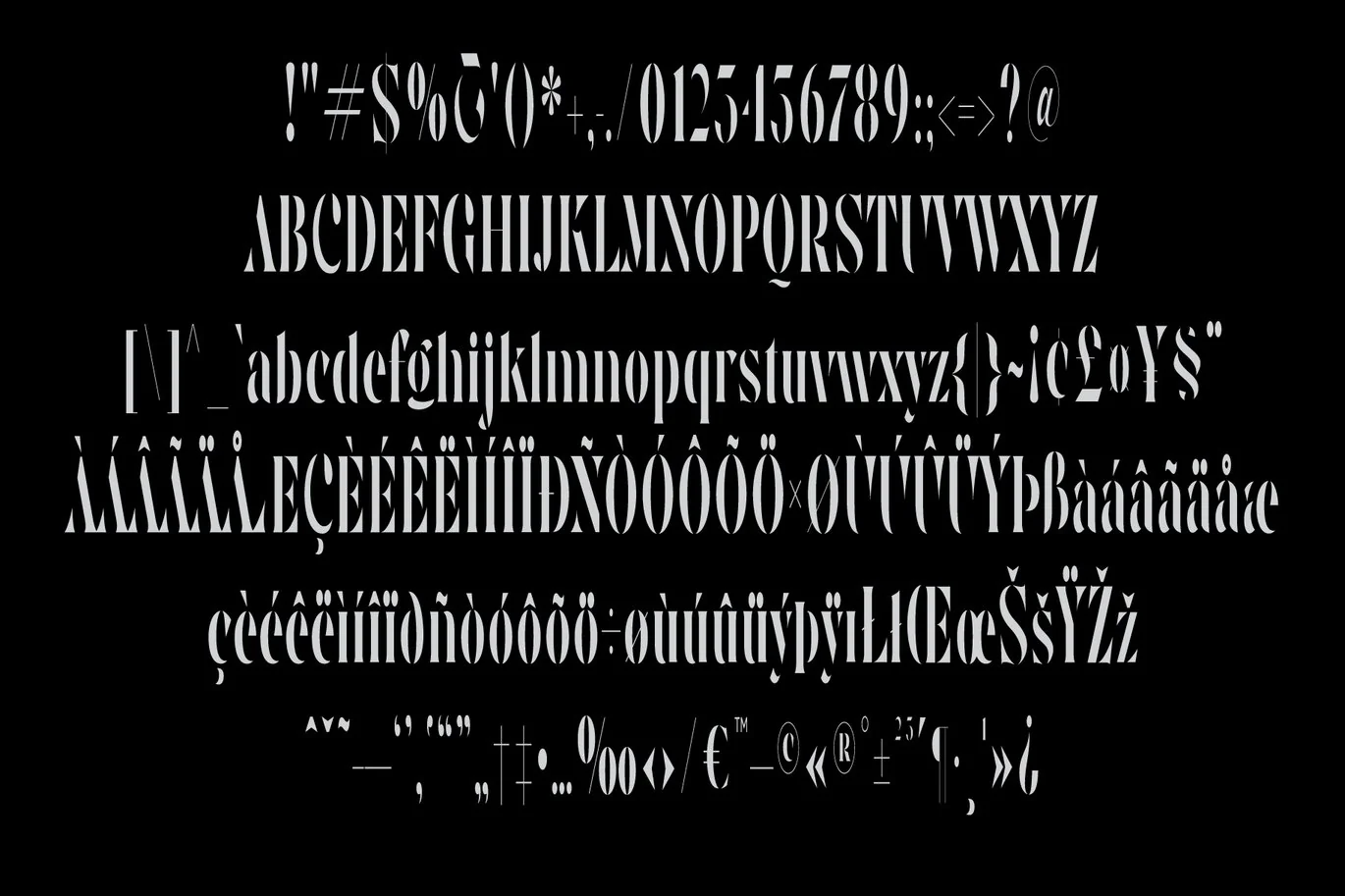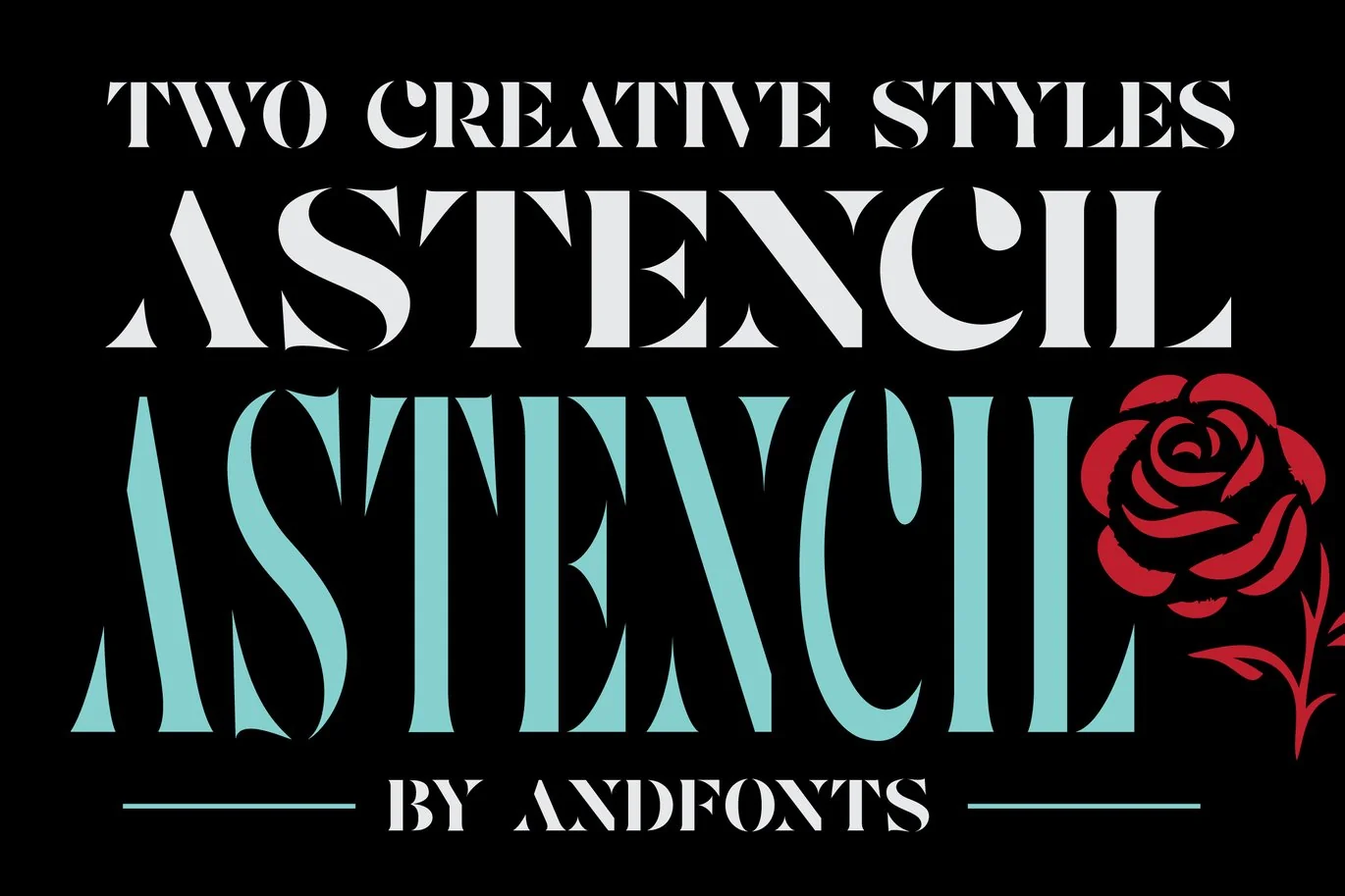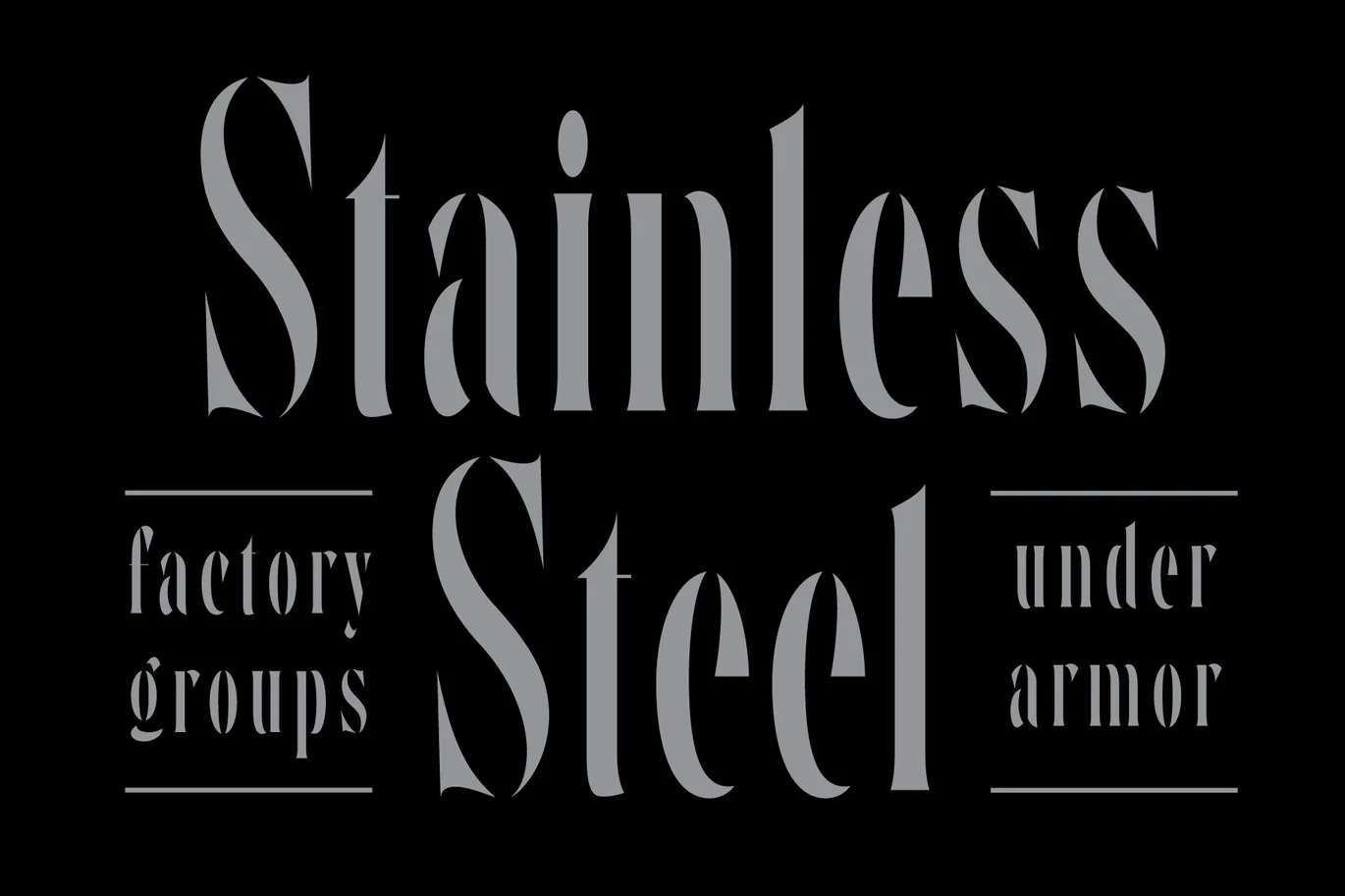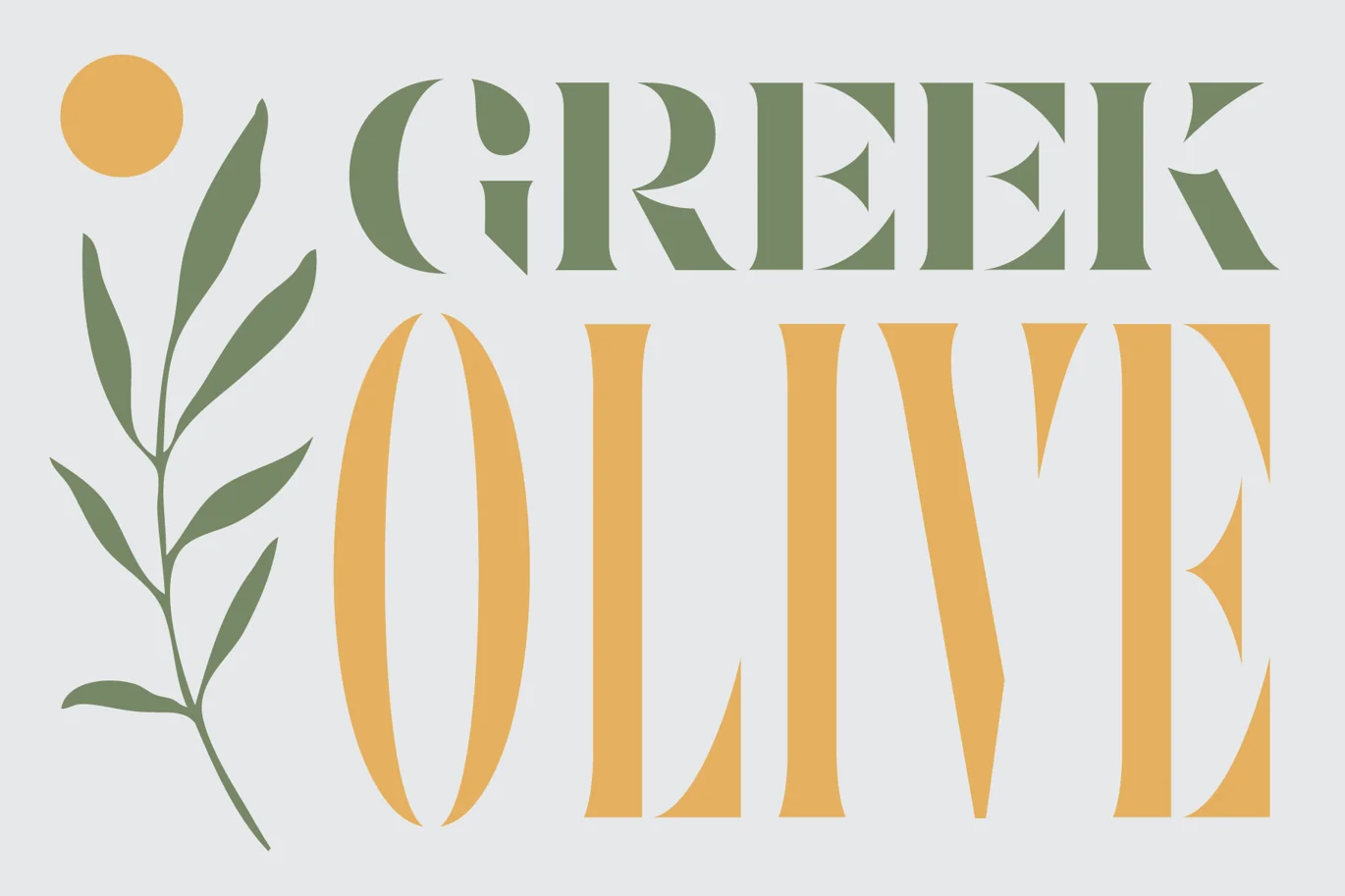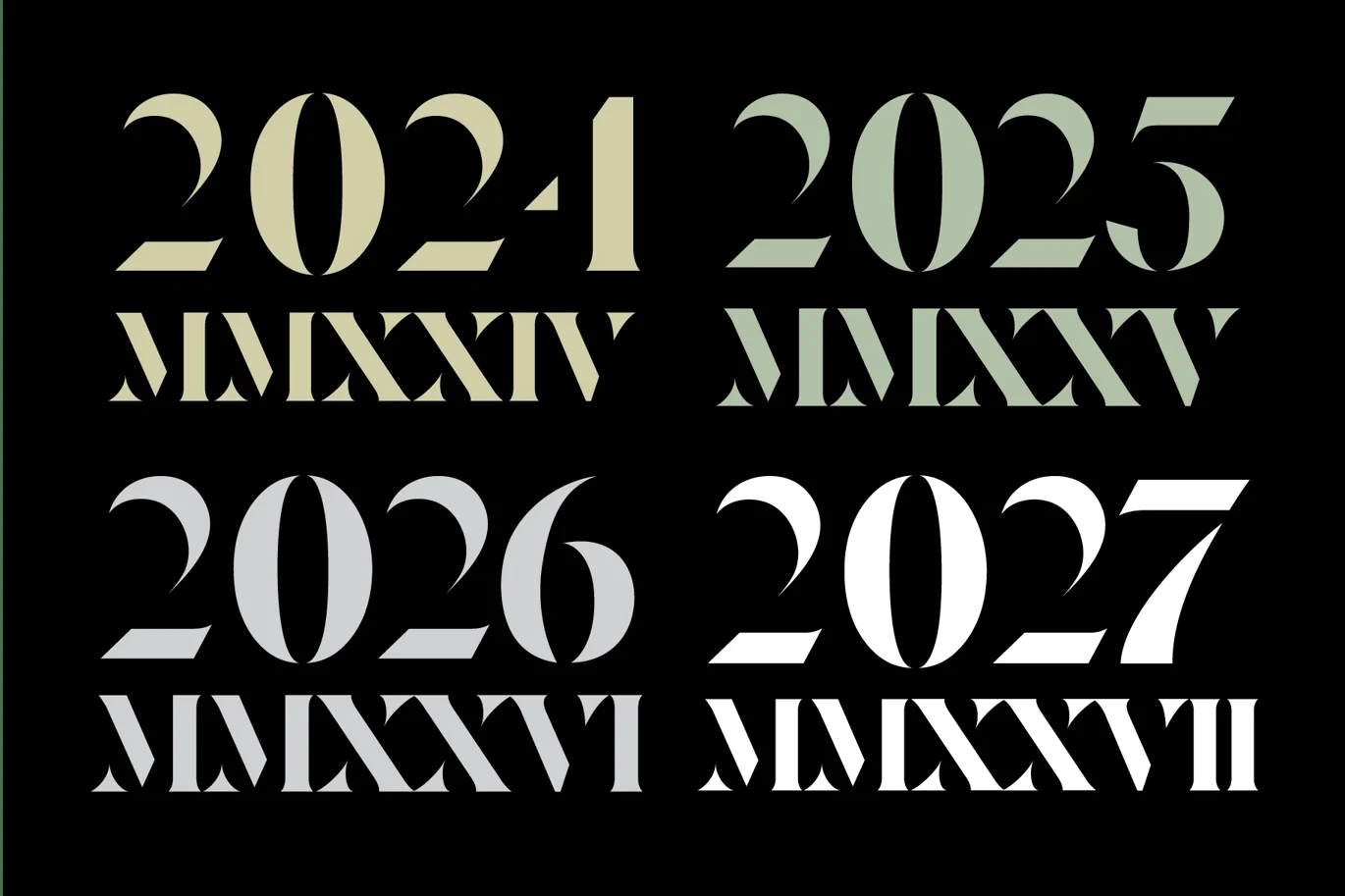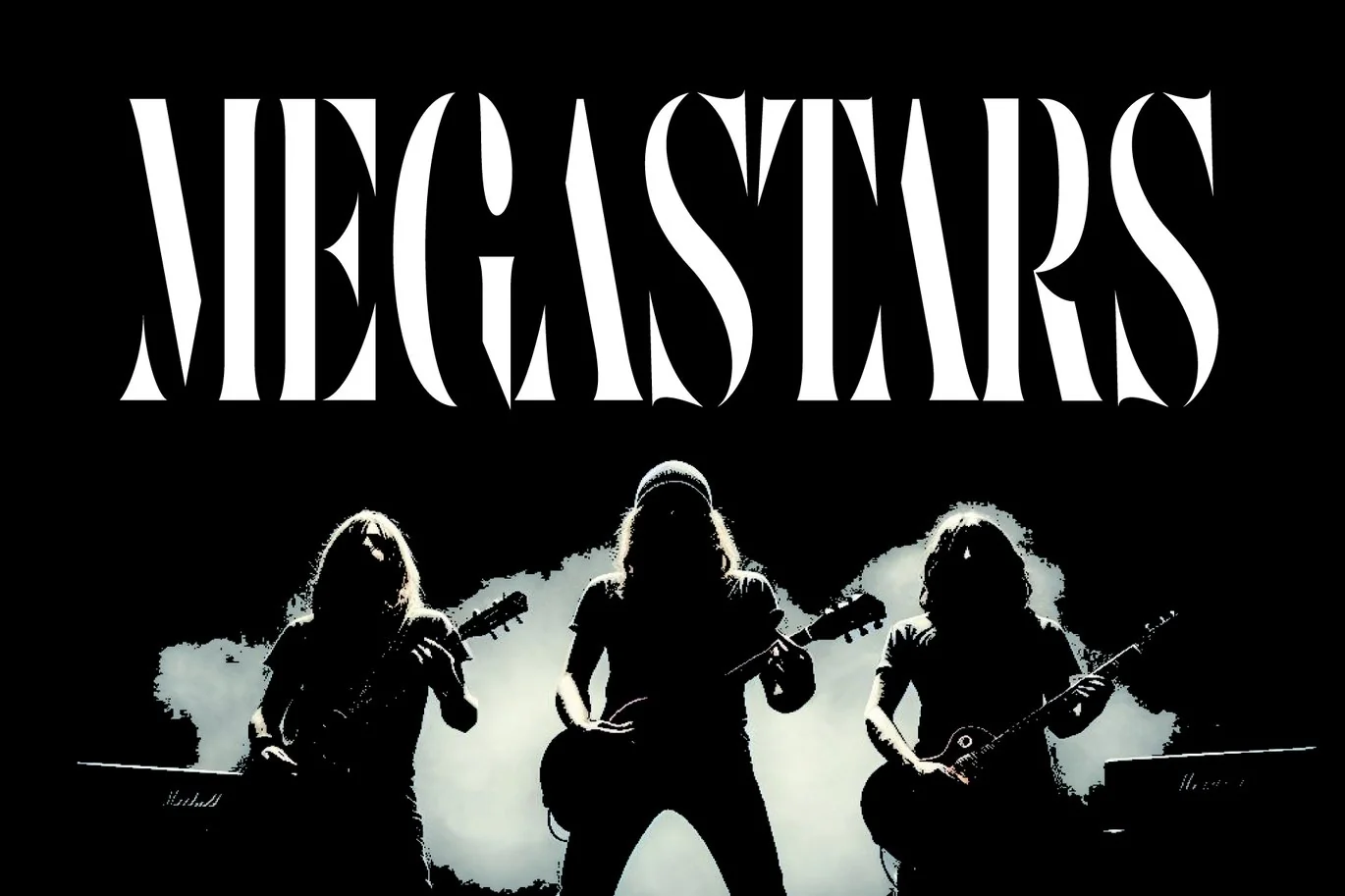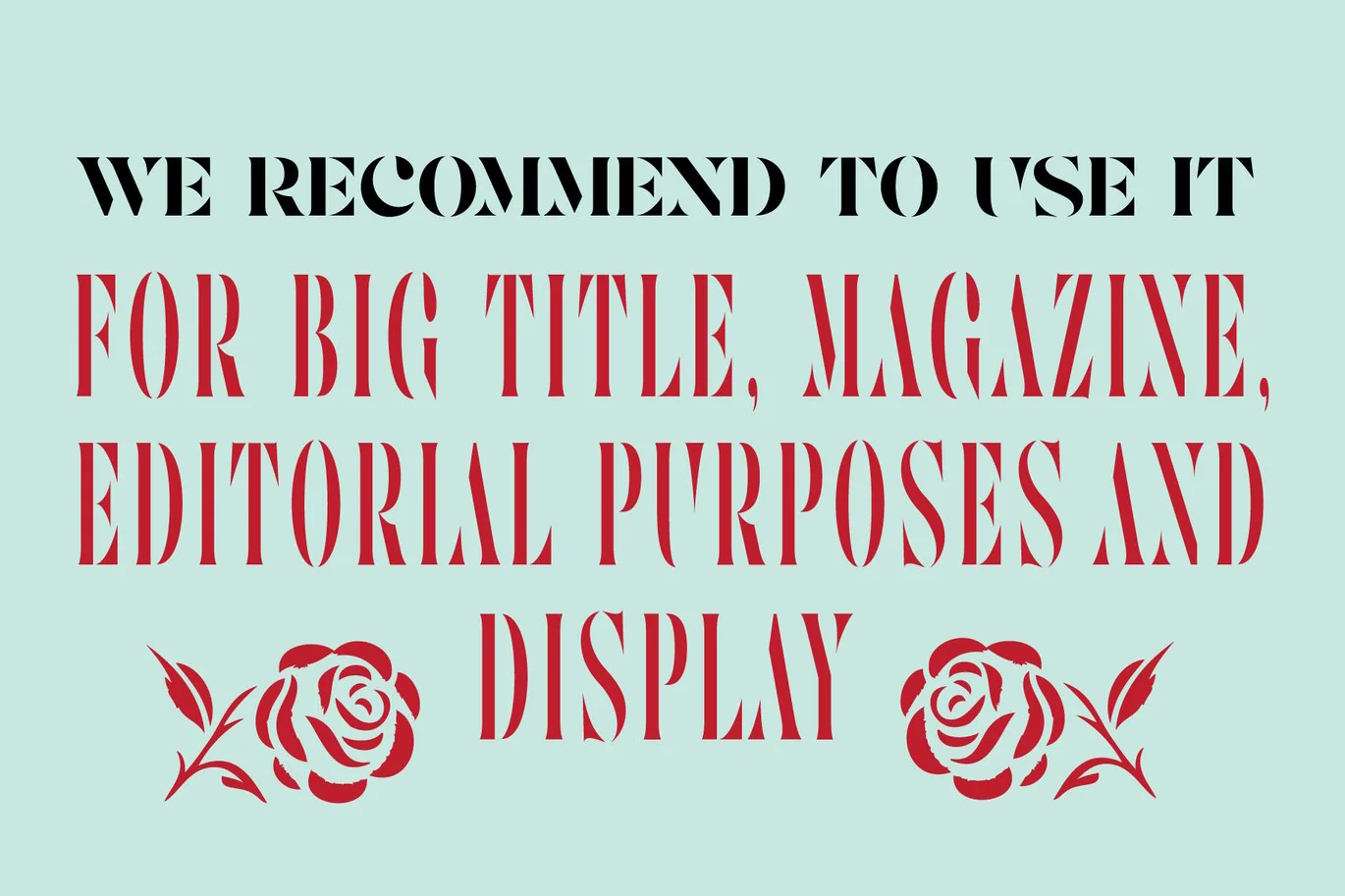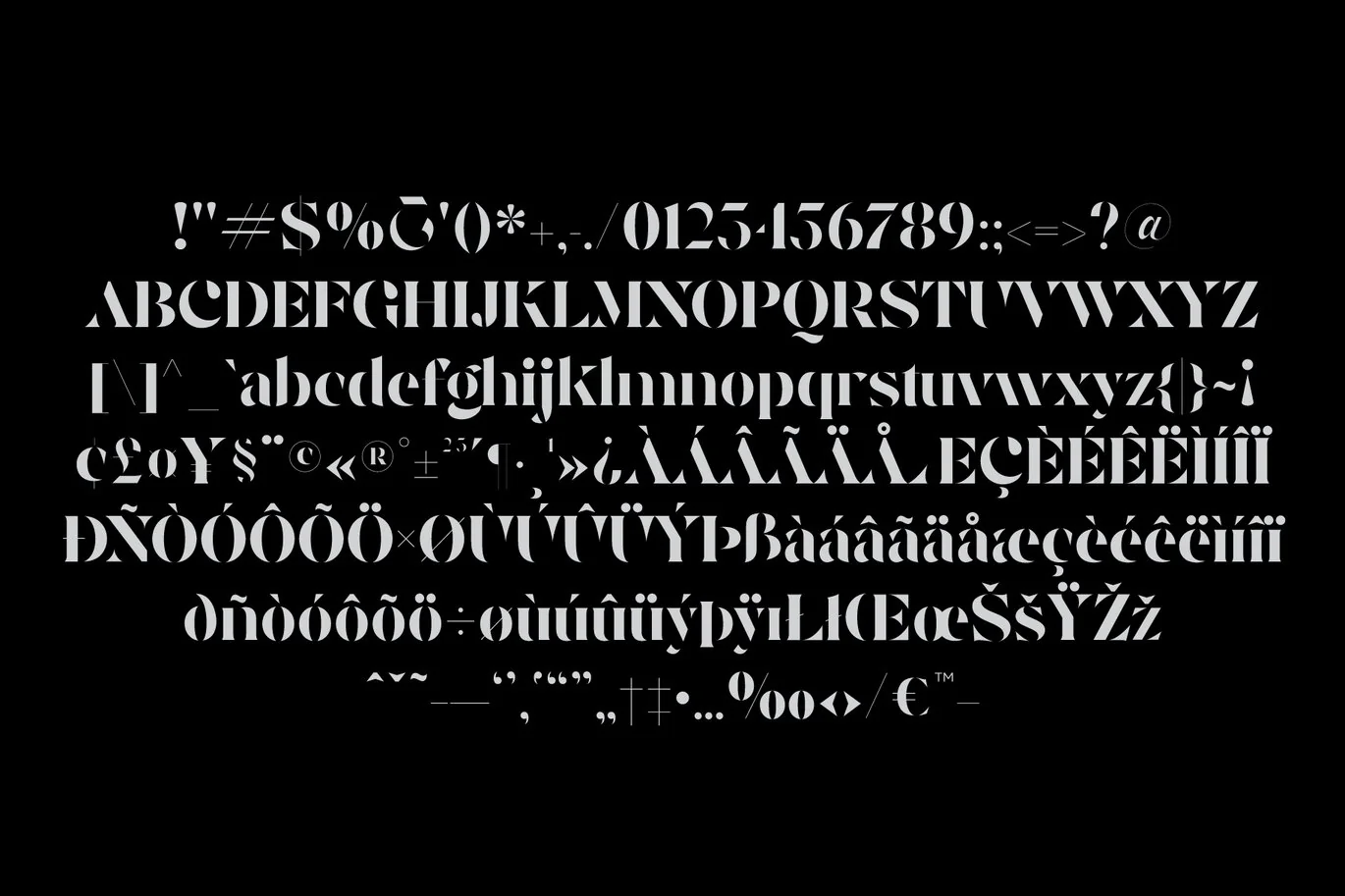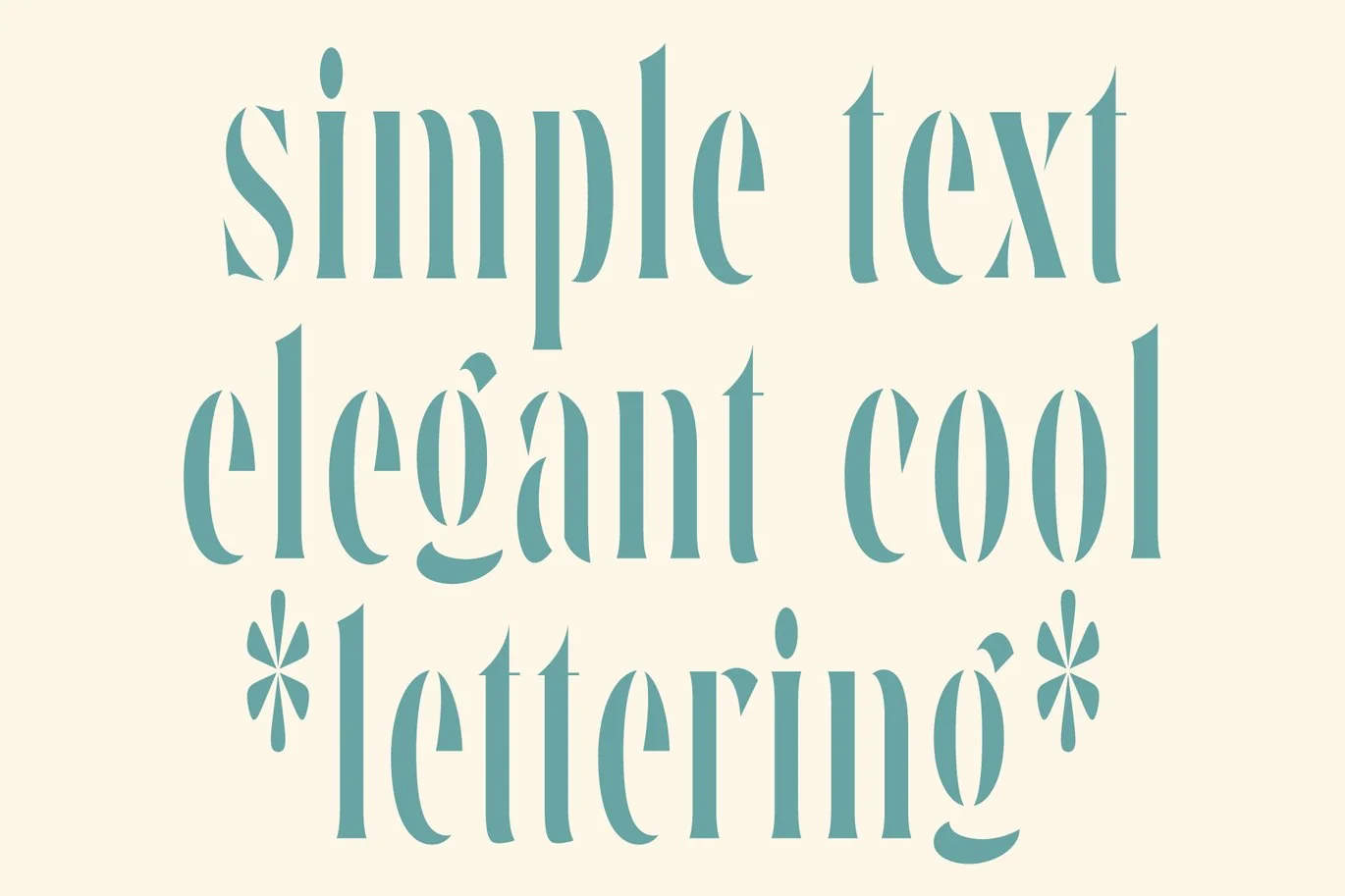
Astencil – Urban Stencil Grunge Font
Astencil: Stencil Serif Font. This font is like the designer suit of typography: sharp, elegant, and with a touch of urban grunge luxury. You can use it to make anything feel posh and upscale, rock & roll, high-end posters, etc. It’s perfect for businesses that want to convey urban sophistication and class. With this font, your designs will stand out and leave a lasting impression of style and refinement.